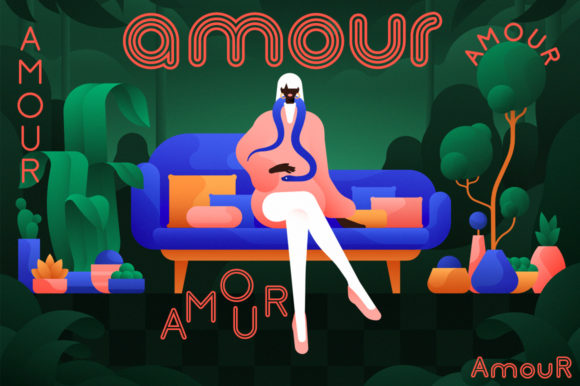
The Timeless Appeal of Gluck Stripes Font
I’ll never forget the design project that led me to discover Gluck Stripes Font. I was working on a branding project for a fashion client, and I needed a font that would convey elegance, sophistication, and a touch of playfulness. As I scrolled through font after font, nothing seemed quite right – until I stumbled upon Gluck Stripes. Its simple yet iconic stripes instantly caught my eye, and I knew I had found the perfect fit.
An Honest Review of Gluck Stripes Font
- ✨ Elegant and sophisticated design that’s perfect for high-end branding projects
- ✅ Highly versatile and adaptable to various design contexts
- 💡 Unique and eye-catching striped pattern that adds visual interest
- 📚 Extensive OpenType features, including glyphs and stylistic alternates
While Gluck Stripes Font is an excellent choice for many design projects, there are a few things to keep in mind:
- 🤔 Limited use in body text due to its display font nature
- ⚠️ May not be suitable for very small font sizes or low-resolution applications
A Practical Guide to Using Gluck Stripes Font
- Experiment with OpenType features, such as glyphs and stylistic alternates, to add visual interest
The Backstory of Gluck Stripes Font
Gluck Stripes Font was designed with the goal of creating a simple yet elegant display font that would add a touch of sophistication to any design project. The font’s creator drew inspiration from classic typography and modern design trends to craft a unique and eye-catching striped pattern.
Q: What is Gluck Stripes Font best suited for?
A: Gluck Stripes Font is best suited for high-end branding projects, packaging, and display text applications where a touch of elegance and sophistication is desired.
Q: Can I use Gluck Stripes Font for body text?
A: While Gluck Stripes Font is a beautiful font, it’s not ideal for body text due to its display font nature. It’s best used for headlines, titles, and other display text applications.
Q: Does Gluck Stripes Font come with OpenType features?
A: Yes, Gluck Stripes Font comes with extensive OpenType features, including glyphs and stylistic alternates, which can be accessed in compatible design software.
Q: Is Gluck Stripes Font suitable for use in digital applications?
A: Yes, Gluck Stripes Font can be used in digital applications, but it’s recommended to use it at a reasonable font size and resolution to ensure optimal legibility.